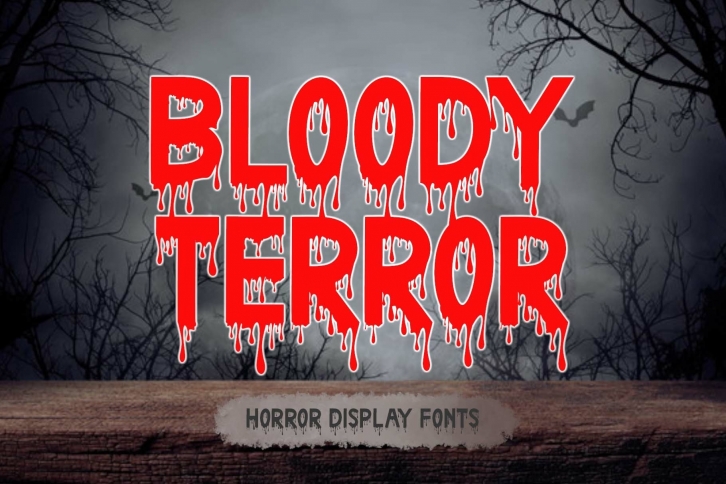
Bloody Terror is a trendy and unique font with an authentic style. It was designed by yogaletter6 and it's a great choice for creative people who need such a font. It was released on September 13, 2022 and the file size is 12.81 MB. Bloody Terror will add an organic vibe to any design idea!